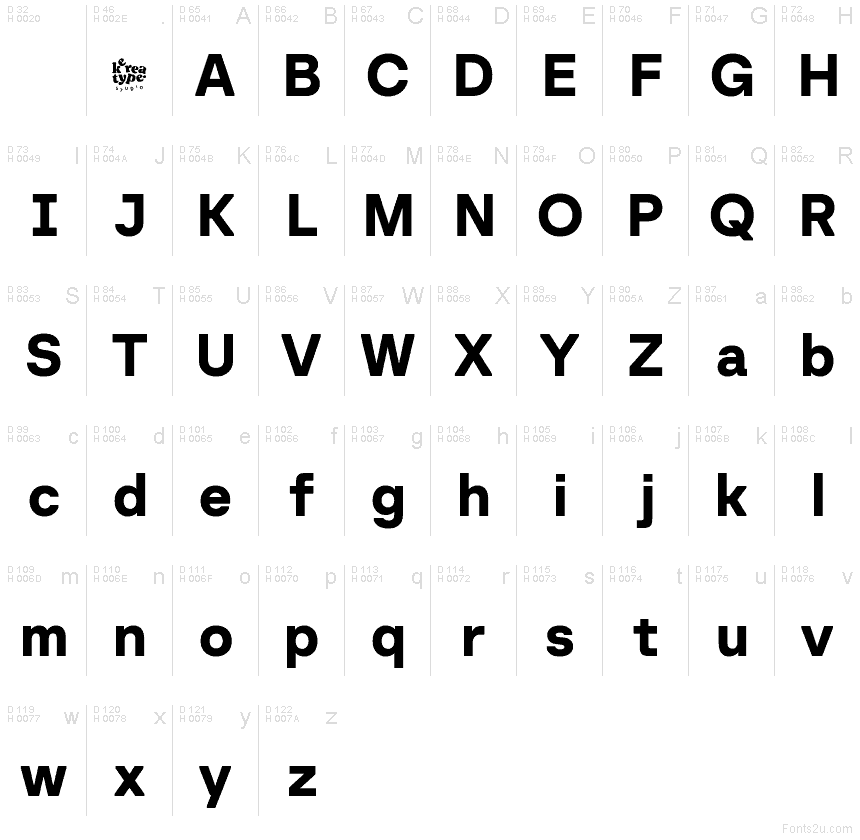
Baru Sans Demo Extra Bold
Baru Sans Extra Bold font by Kereatype Studio is a free sans serif font. When you need headline heft without sacrificing clarity, this cut delivers: broad shapes, generous counters, and steady rhythm create bold impact that still reads fast. Its chunky, ink-solid strokes feel sturdy yet friendly, giving logos and large type a confident, modern tone.
Using Baru Sans Extra Bold, you can drive attention on headlines, banners, packaging, social graphics, event posters, and app splash screens. It shines on tight grids and responsive layouts where clean spacing keeps letters from clumping. For a balanced system, pair this heavy weight with Baru Sans Regular for body copy, and ease the tracking slightly in all-caps to keep the flow.